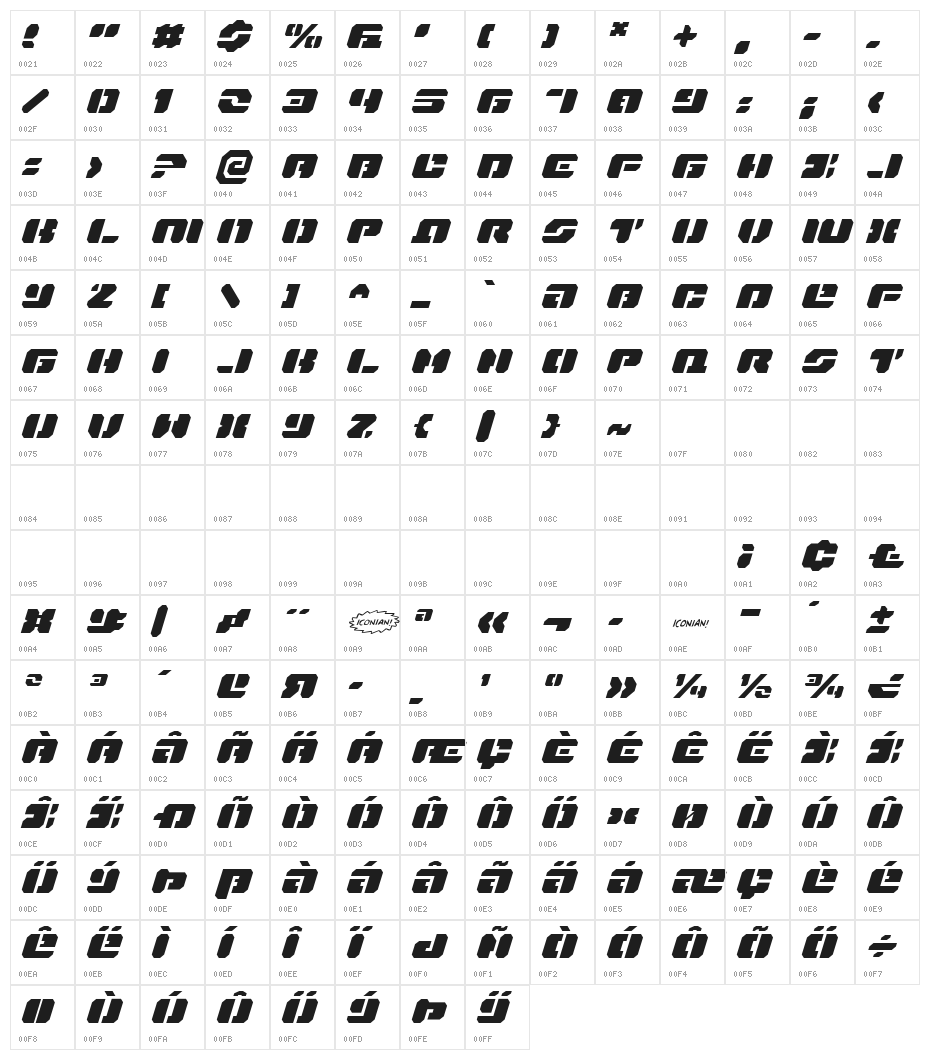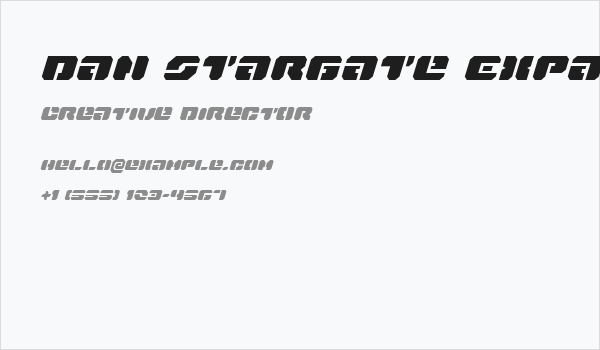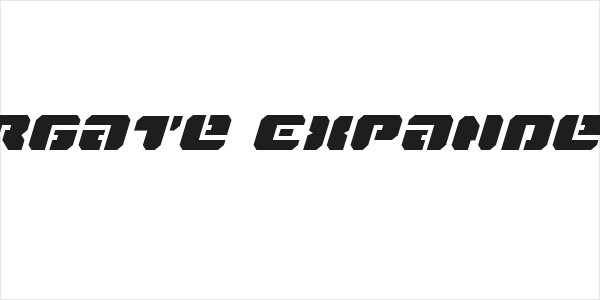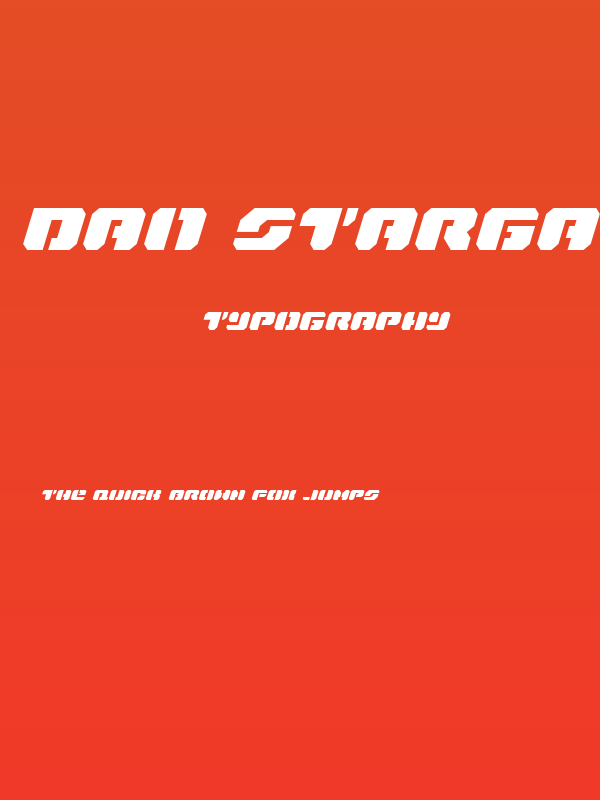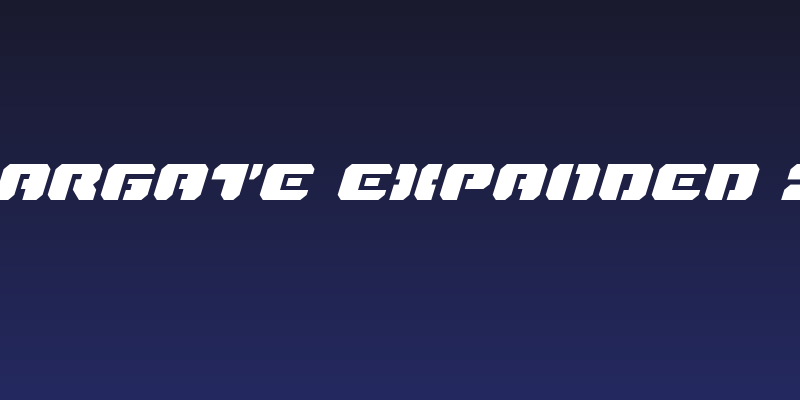
Dan Stargate Expanded Italic Font
Dan Stargate Expanded Italic Description
This font features a bold and futuristic design with an expanded and italicized style. The characters are constructed with sharp, angular edges and a geometric structure, giving it a modern and dynamic appearance. The uppercase and lowercase letters maintain a consistent style, with a slight slant that adds a sense of motion. The numbers and special characters are designed to match the bold and angular aesthetic, ensuring a cohesive look across all elements. The font's expanded width allows for a strong visual impact, making it suitable for attention-grabbing designs.
| Proposed Projects | Ideal for sci-fi themed projects, technology branding, video game titles, and futuristic posters. |